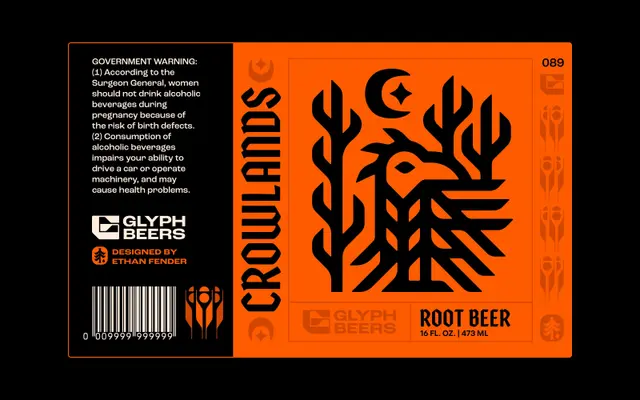
Cinder
Fort Foundry · Mattox Shuler
A blackletter display face by Mattox Shuler, drawn from mid-century animation titling and built around small caps in place of lowercase.
Cinder draws on titling and lettering from 1950s animated films, reinterpreting blackletter conventions for contemporary display use. In place of a traditional lowercase, it uses small caps, which can be set alongside the uppercase in the conventional manner, used independently as an all-caps style, or flipped to centred alternates for a more playful effect. The two styles, Regular and Italic, suit titles, short-form copy and name treatments rather than extended text.
Fort Foundry categorises it explicitly as blackletter. It takes cues from mid-century animation titling and interprets blackletter conventions for display and titling use rather than continuous text.